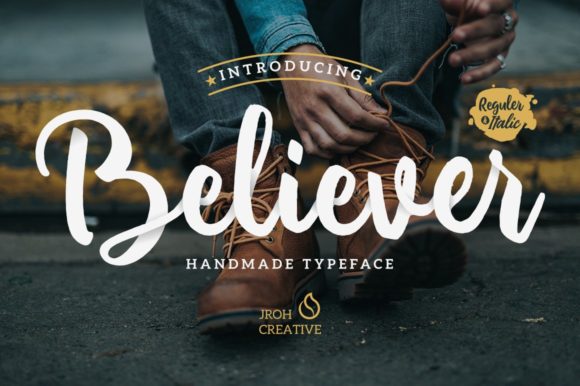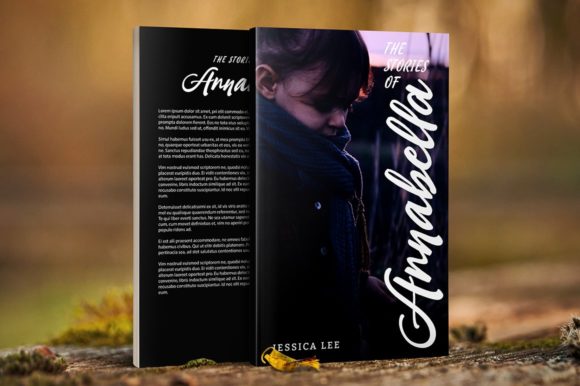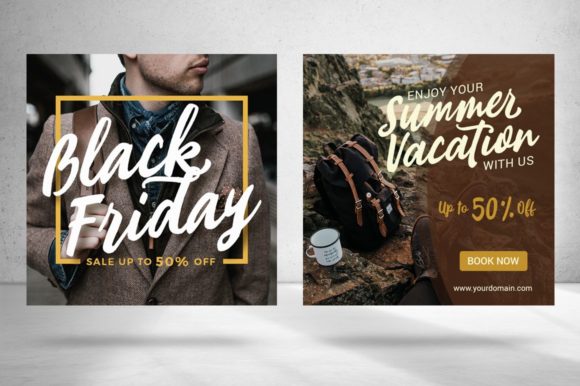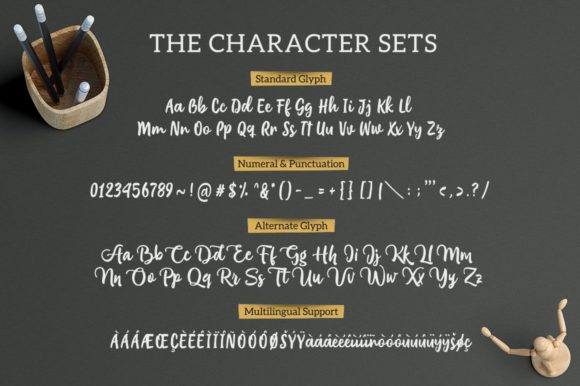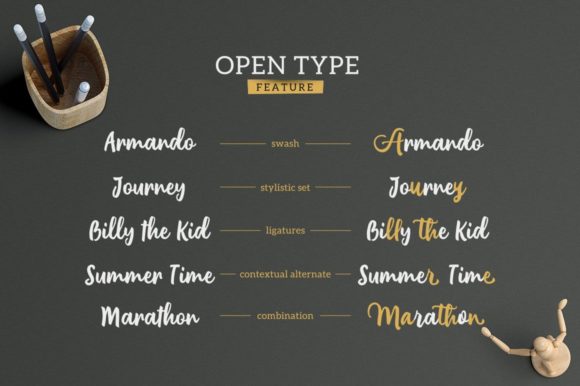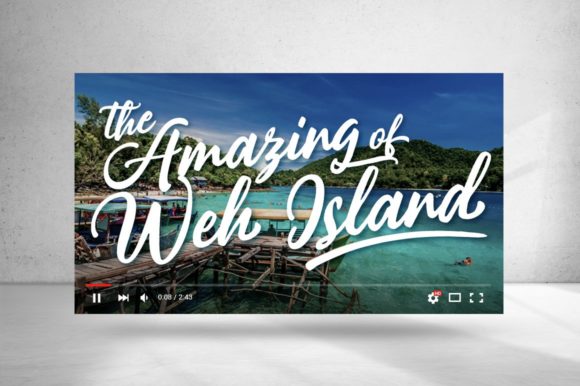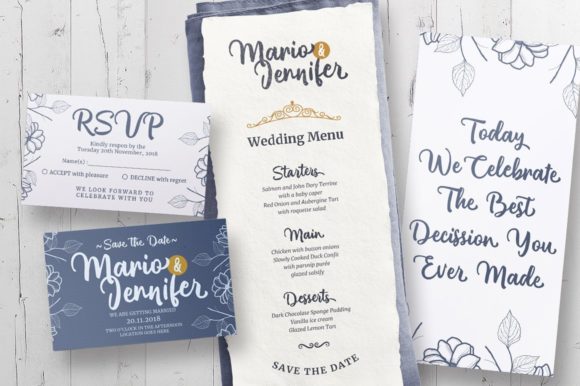
Believer Font
About Believer Font
Believer is a bold and fun handwritten font. It is suitable for headline, logo, cover title, wedding invitation, greeting cards, merchandise, watercolor-based design, or anything that needs natural feeling to put on to.